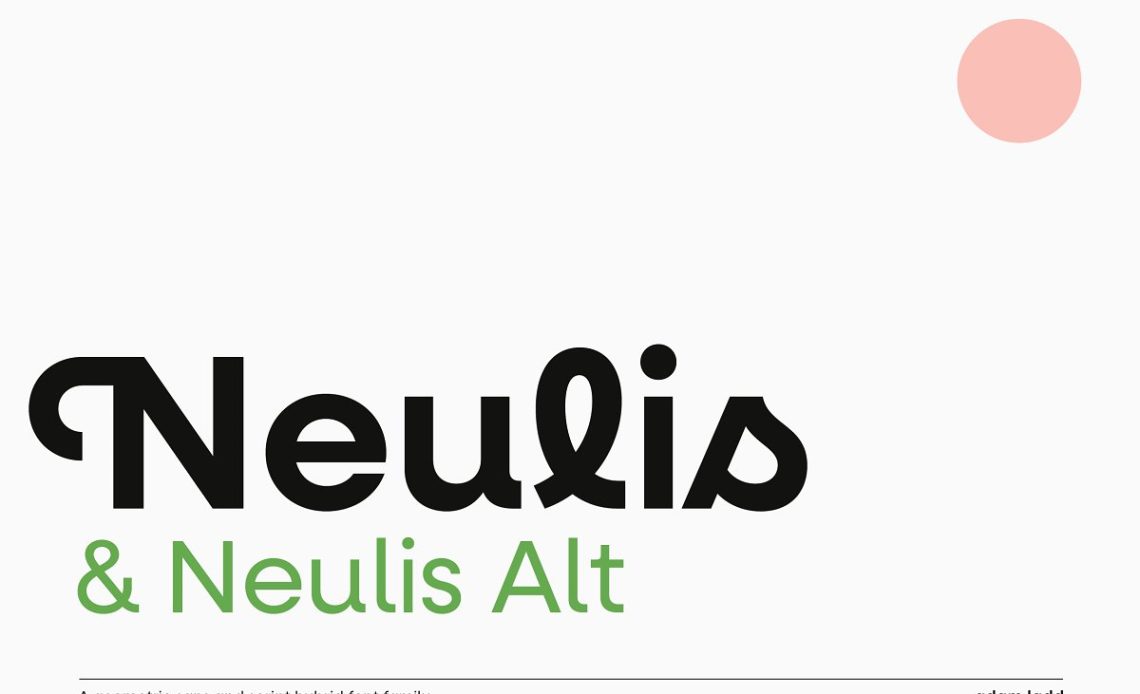
Are you tired of using the same old fonts for your designs? Neulis Font Family is the solution you've been looking for! Created by Adam Ladd, this geometric sans serif and modern script hybrid font offers a unique display of characters that are both modern and elegant.
Neulis comes in two family variations: the original design and the Neulis Alt design. The original design features characters inspired by script letterforms, while the Neulis Alt design offers a more classic sans serif option. With a monoline appearance, the font looks clean and modern, making it perfect for a variety of design needs.
Neulis includes many features that allow you to customize your designs even further. With Swash capitals (PUA-encoded), stylistic alternates, case-sensitive punctuation for All Caps, arrows, fractions, numerators, denominators, superscript, subscript, and almost 600 glyphs, this font has extensive multilingual Latin language support (100+ languages) for Western, Central, and South Eastern European.